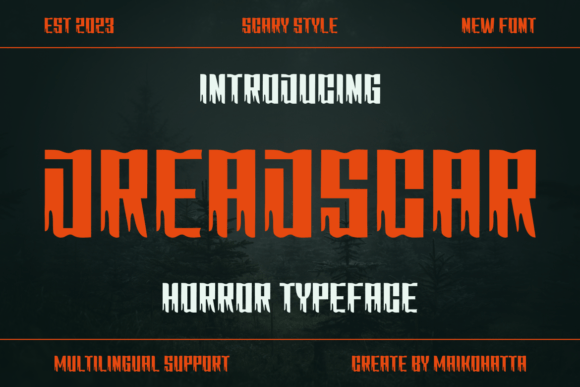
Introducing Dreadscar Font, the ultimate choice for tattoo lettering enthusiasts seeking the best font to create an eerie and captivating atmosphere. Designed by the talented maikofarazhatta, this decorative font is destined to be your go-to option for all things spooky and mysterious.
With its unique style and attention to detail, Dreadscar Font effortlessly captures the spirit of Halloween celebrations. It is the perfect tool to bring your Halloween-themed projects to life, whether you're designing party invitations, posters, merchandise, greeting cards, warning signs, or even enhancing your website with a touch of Halloween magic.
This font is more than just a collection of letters; it is a vessel that immerses your audience in the world of the supernatural. Feel the spine-chilling thrill as each character oozes with the essence of darkness and mystery. Every stroke is meticulously crafted to send shivers down your spine and ignite a sense of anticipation in your viewers.
Unleash your creativity and embark on a journey where each letter tells a haunting tale. With Dreadscar Font, your designs will exude an aura of mystique, captivating your audience and leaving a lasting impression. Let your imagination run wild as you explore the endless possibilities this font offers, allowing you to create captivating and eye-catching designs that stand out from the crowd.
Don't settle for mundane fonts that fail to capture the essence of Halloween. Dreadscar Font is here to elevate your designs, infusing them with an unparalleled sense of dark beauty. So, why wait? Take a leap into the world of shadows and embrace the magic that Dreadscar Font brings to your projects.